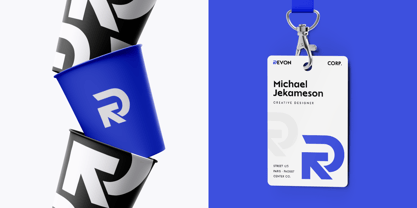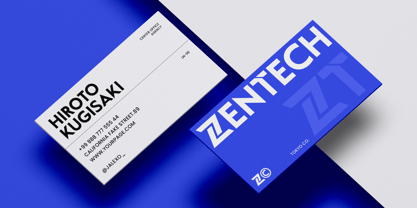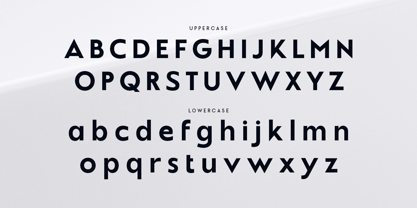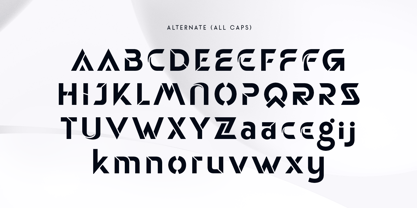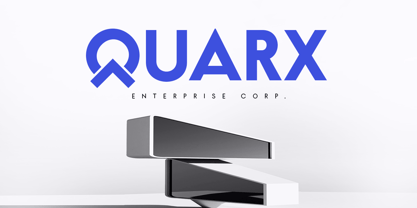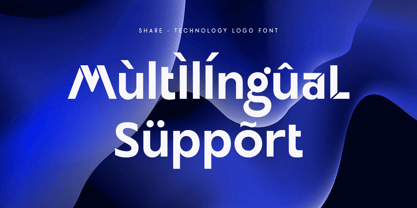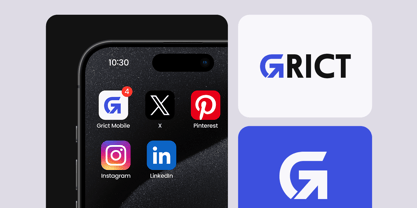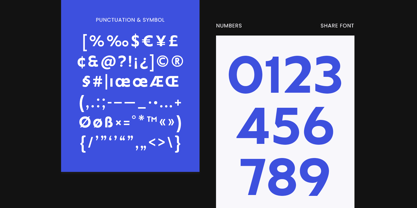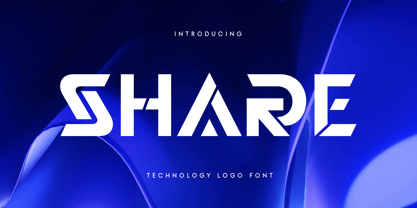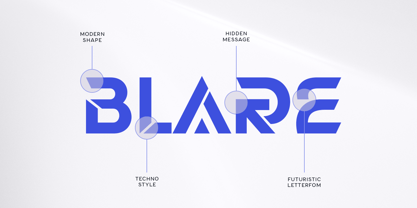
Share SS
by Sensatype Studio
The Share SS Font Family was designed by Zamroni Hamzah and published by Sensatype Studio. Share SS contains 2 styles and family package options.
Share is a modern technology font created to meet the needs of forward-thinking brands. Its sleek and minimal design makes it the perfect choice for companies looking to establish a strong and innovative presence. Whether you're designing a logo, website, or product packaging, Share offers the versatility and sophistication needed to stand out in the tech industry.
This font was crafted with attention to detail, ensuring that every character contributes to a cohesive and professional appearance. Share's modern aesthetics make it ideal for digital applications, where clarity and impact are key. It's a font that seamlessly blends technology with design, making it a go-to choice for tech-savvy businesses.
With its unique alternative characters and clean lines, Share provides a fresh approach to modern logo design, helping brands communicate their technological edge and forward-looking vision.
Share Technology Logo Font Features:
• Unique Alternative Characters Ready
• Punctuation, Number, and Symbol
• Uppercase and Lowercase
• Multilingual Support
• Opentype Features